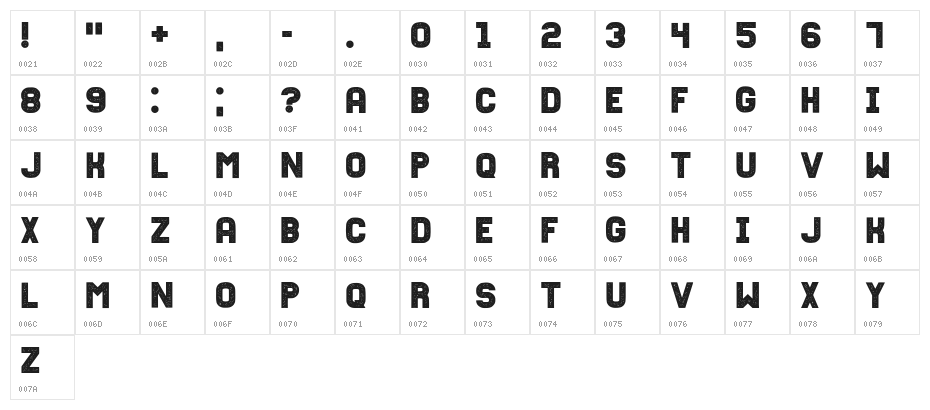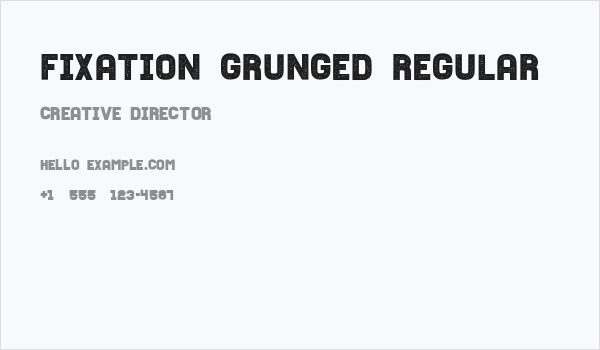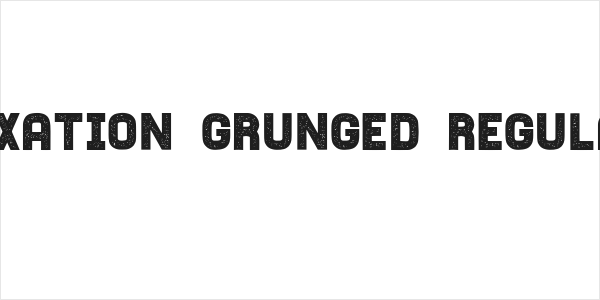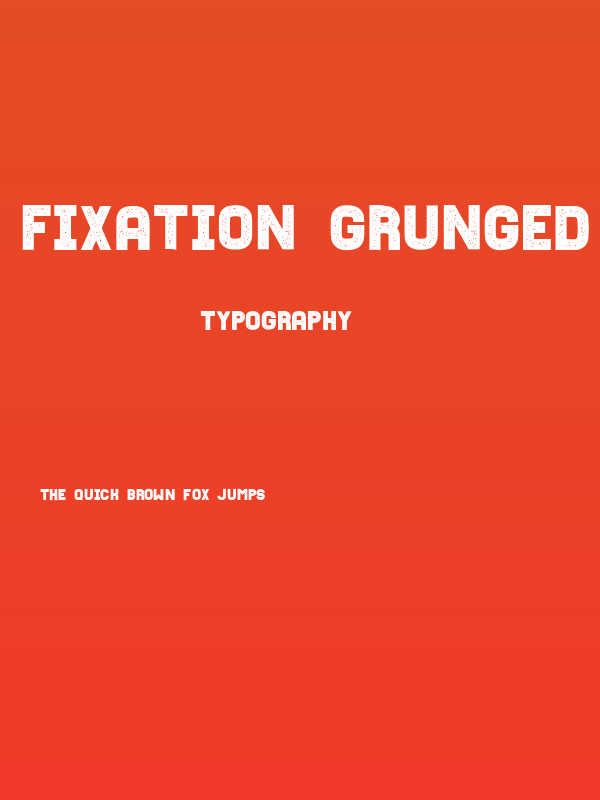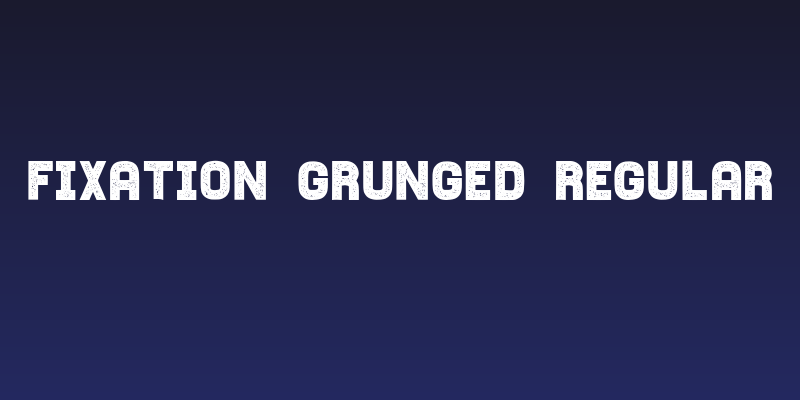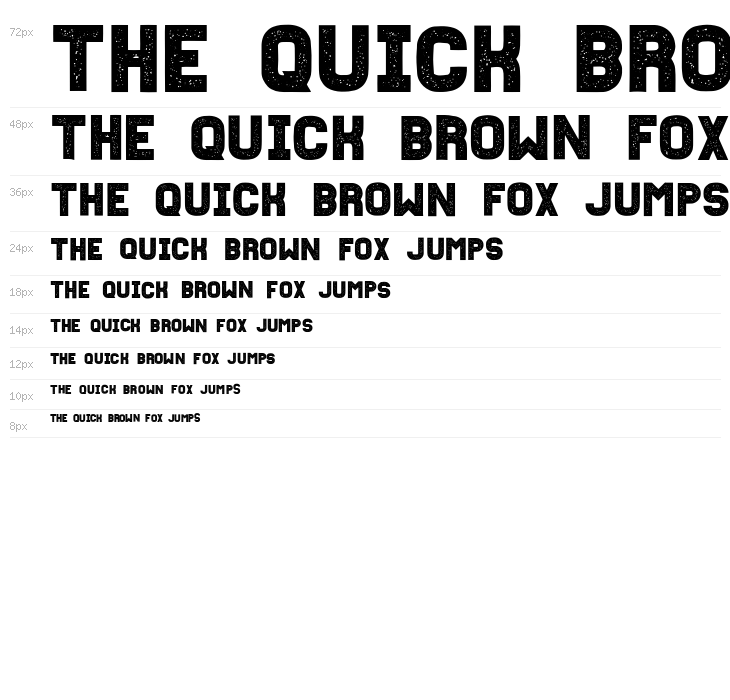
Fixation Grunged Regular Font
Fixation Grunged Regular Description
This font features a bold, distressed style with a grunge texture that gives it a rugged and edgy appearance. The characters are uniformly bold with a consistent width, making them highly legible while maintaining a unique, weathered look. The texture appears as speckled or worn patches across each letter, adding a vintage or industrial feel. This style is perfect for projects that require a strong, impactful visual presence, such as posters, album covers, or branding that aims to convey a sense of toughness or authenticity. The uppercase and lowercase letters maintain the same boldness and texture, ensuring consistency across different text elements.
| Proposed Projects | Ideal for posters, album covers, branding, and any design needing a strong, edgy look. |